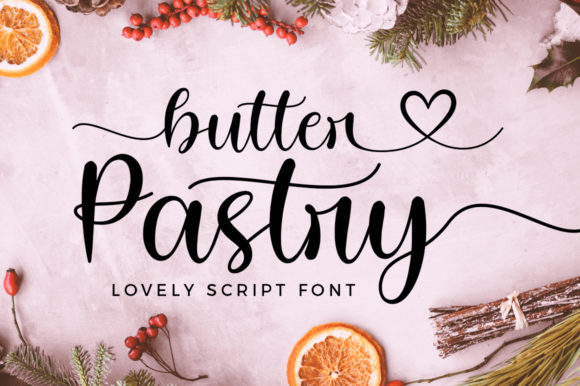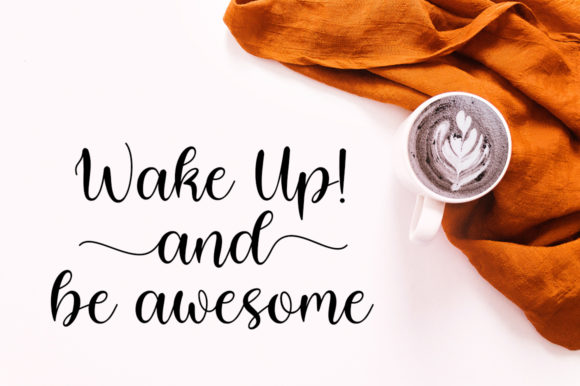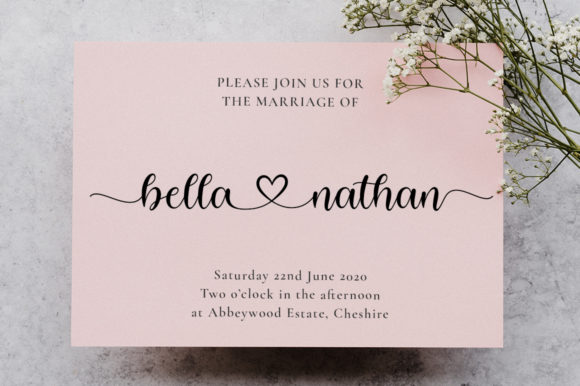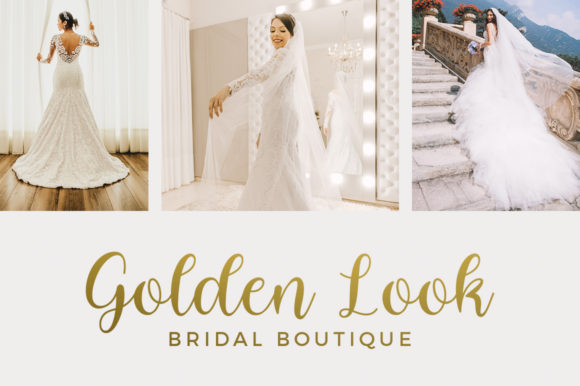
Butter Pastry Font: Romantic Calligraphy Script for Wedding & Branding
About the Butter Pastry Font
The Butter Pastry Font is here to transform your projects with its distinctive character and style. Butter Pastry is a short and lovely script font with beautiful and romantic calligraphy lines. This font includes heart connecting lowercase swashes, beginning and ending lowercase swashes, ascender descender lowercase swashes. Butter Pastry font also includes a full set of uppercase and lowercase letters, multilingual symbols, numerals and punctuation, and ligatures. This font is PUA encoded which means you can access all of the available glyphs and swashes with ease.
Butter Pastry’s elegant, romantic style makes it ideal for projects requiring a touch of delicate charm. It shines in short headlines, wedding invitations, branding for boutiques or artisanal food products, and on packaging for luxury goods. However, its decorative nature makes it less suitable for body text or UI elements where readability is paramount. Avoid using it for large blocks of text.
Its inherent softness is best complemented by pairings with clean sans-serif fonts like Lato or Open Sans for a modern contrast, or a classic serif like Garamond or Playfair Display for a more traditional feel. A simple geometric sans-serif could also create a striking juxtaposition.
The overall personality is undeniably romantic and feminine, but with a touch of playful sophistication. This makes it versatile enough for various applications, provided the context prioritizes visual appeal over extensive readability.